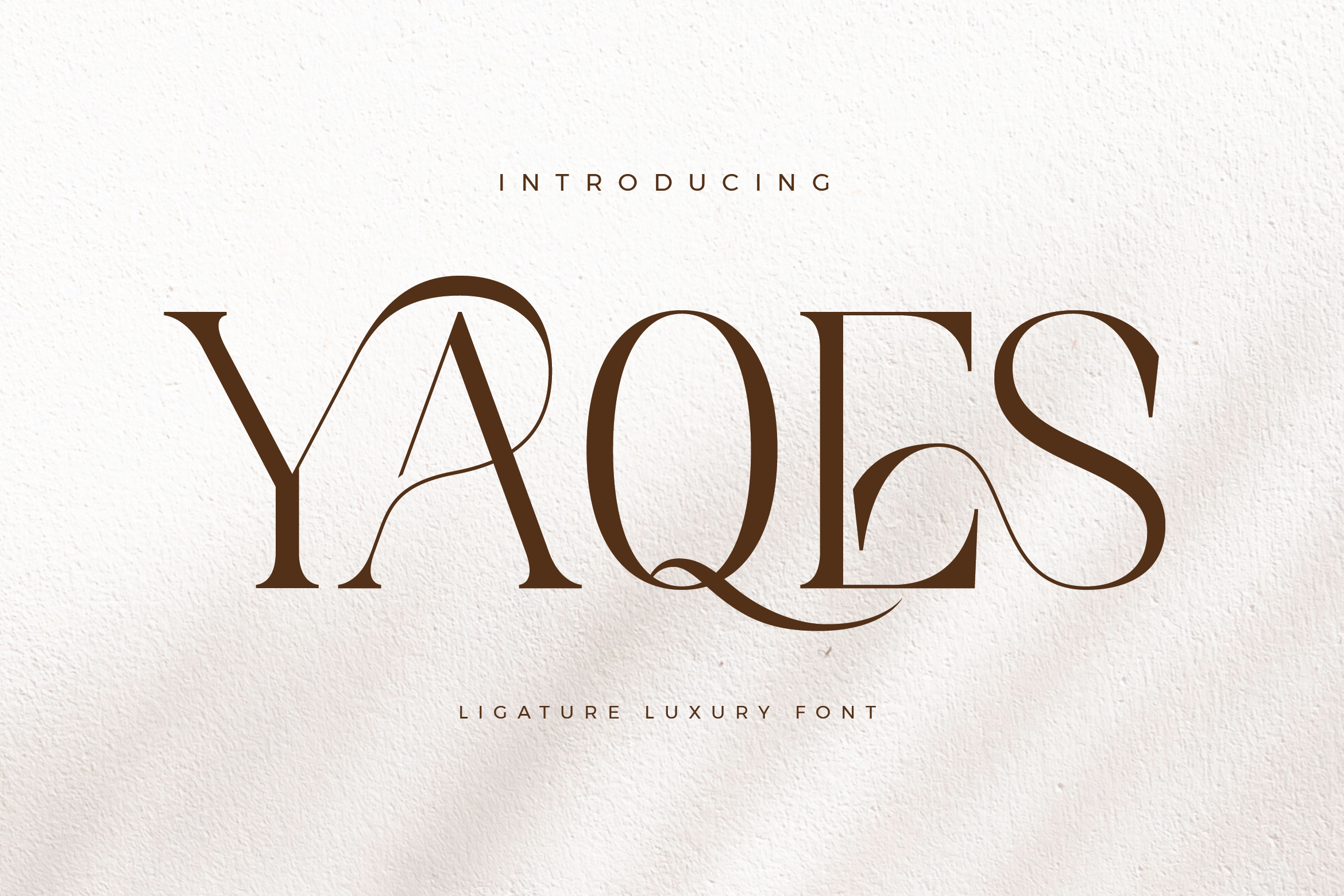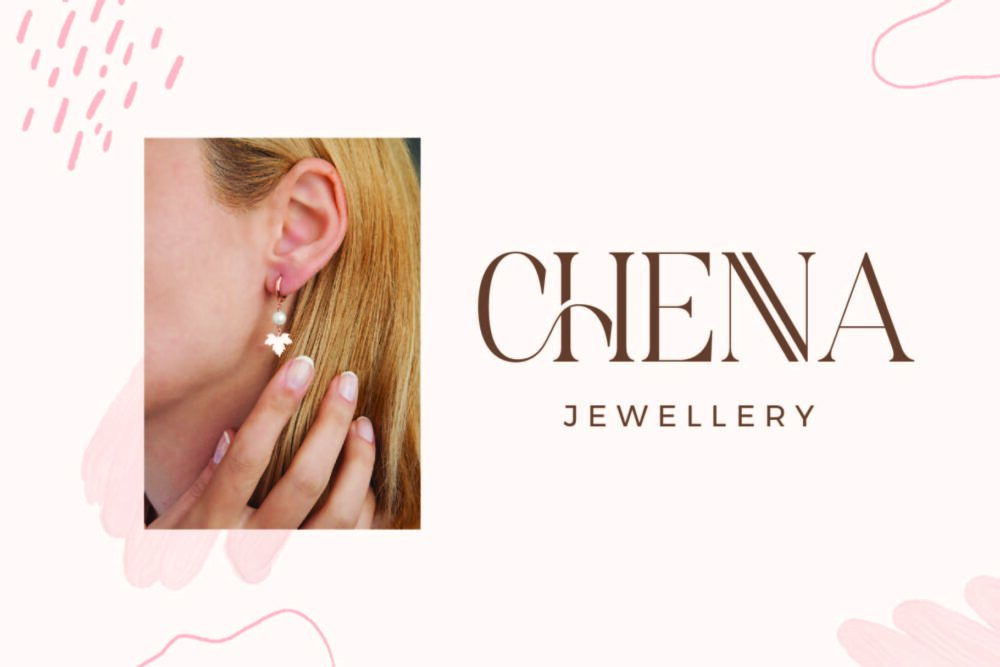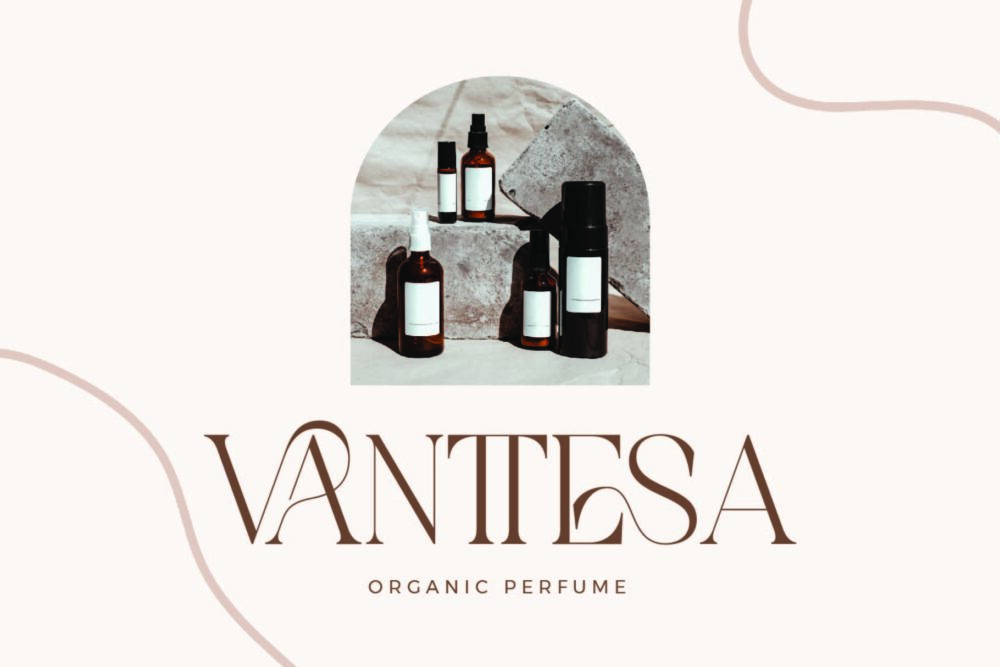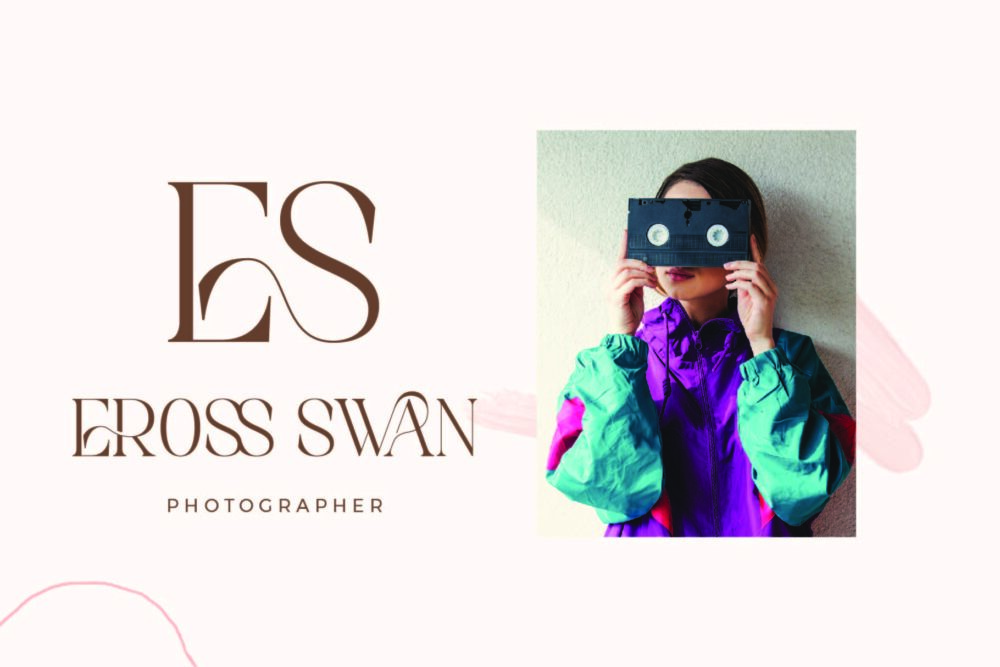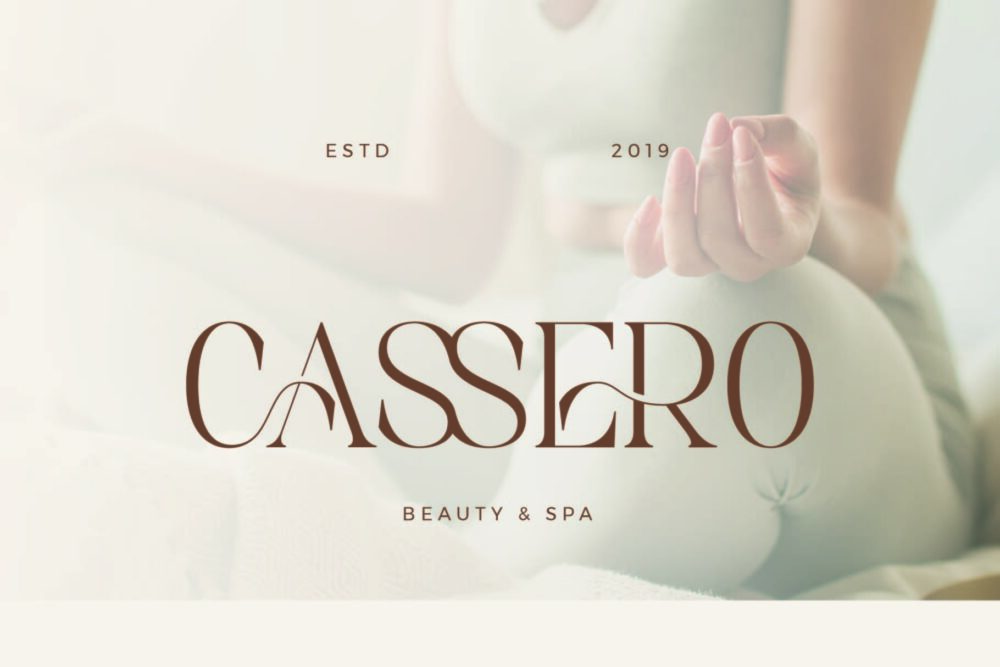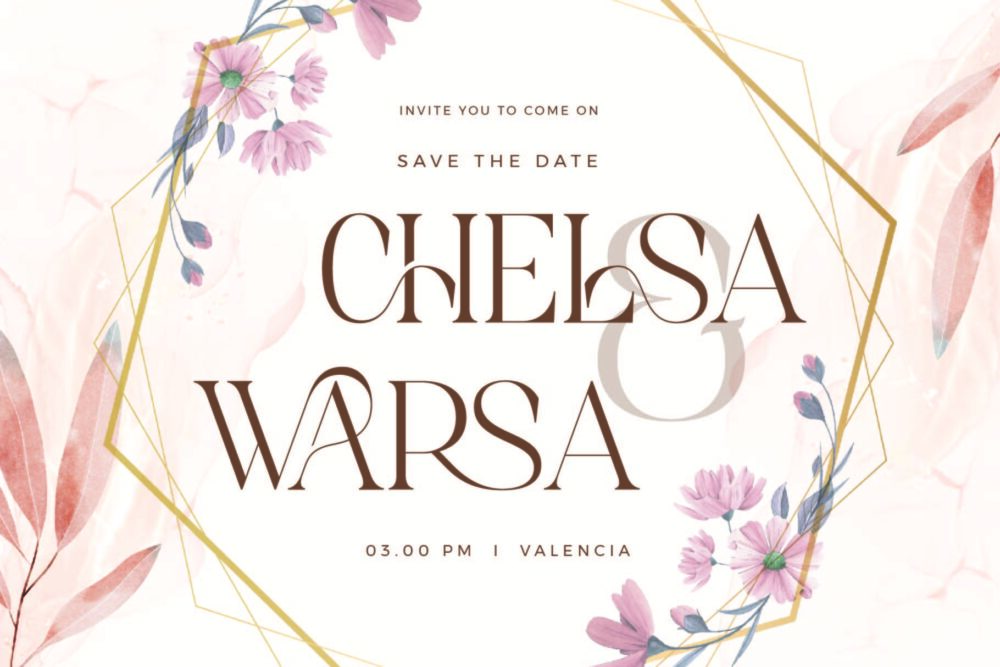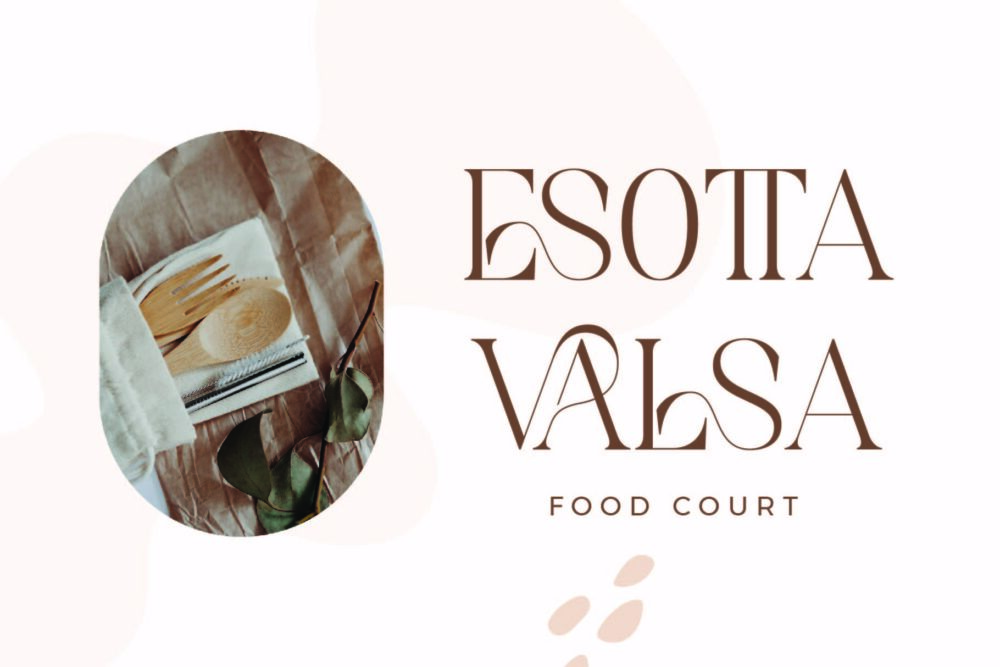
Yaqes
Yaqes Stylish Ligature Typeface, inspired by the famous minimalist logo perfect for the purposes of designing templates, brochures, videos, advertising branding, logos and more.
Yaqes – Luxury Serif Font